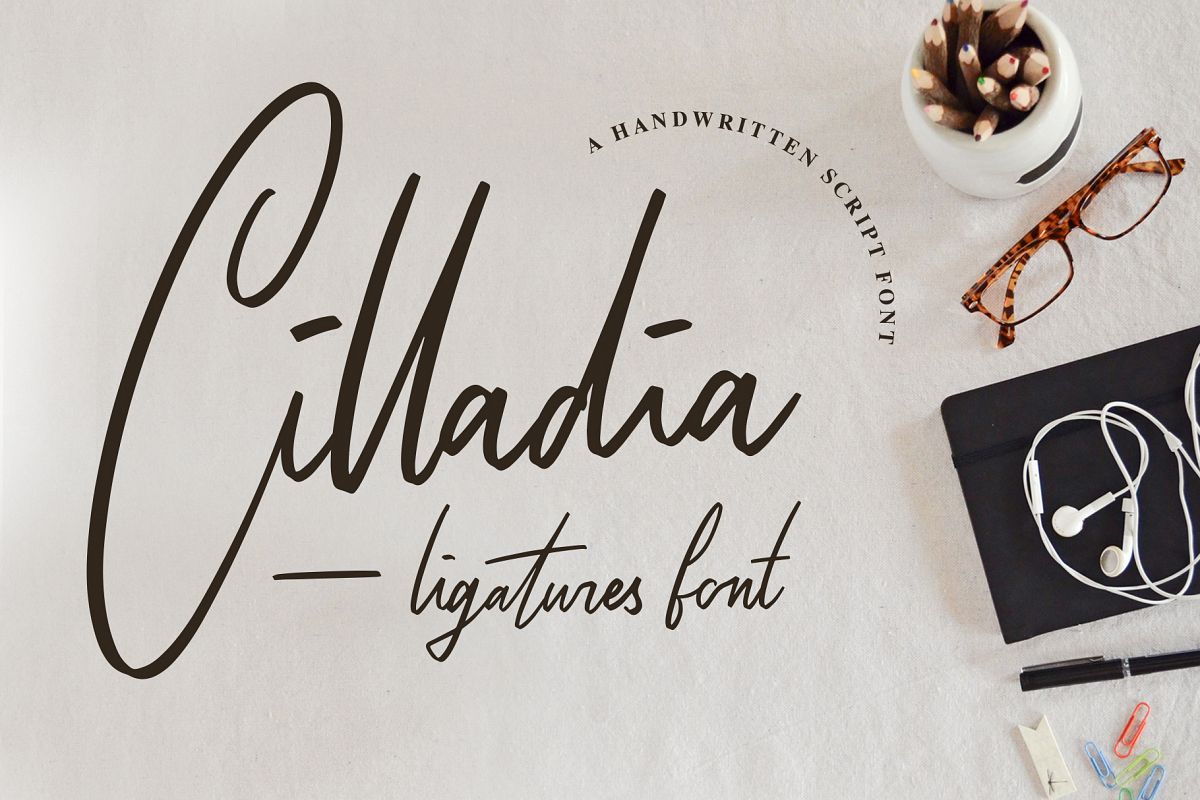
Cilladia - Ligatures Font
Cilladia Signature
Hello everyone, we present a new font Cilladia - Ligatures Font is a beautiful writing theme with a charming curve and a very shaky bottom line It has a perfectly paired marker font, and a bunch of very practical Swash bonuses Ideal for logos, handwritten quotes, product packaging, headers, posters, merchandise, social media & greeting cards.
To keep maximum real hand lettered effect, there were created 117 ligatures ( you can see them among presentation pictures).  When creating the font, we should take into consideration that each letter should be able to be connected with other letters.